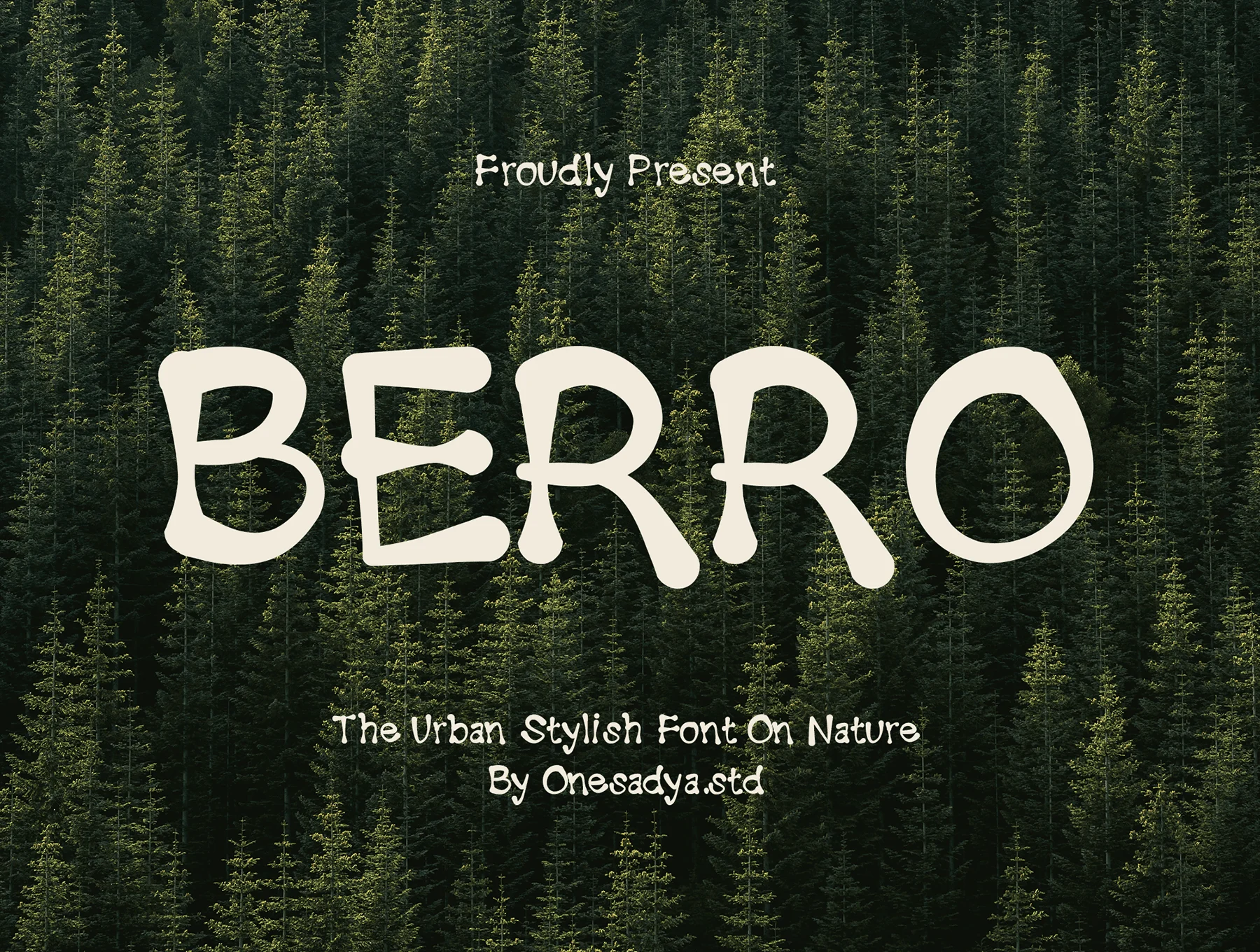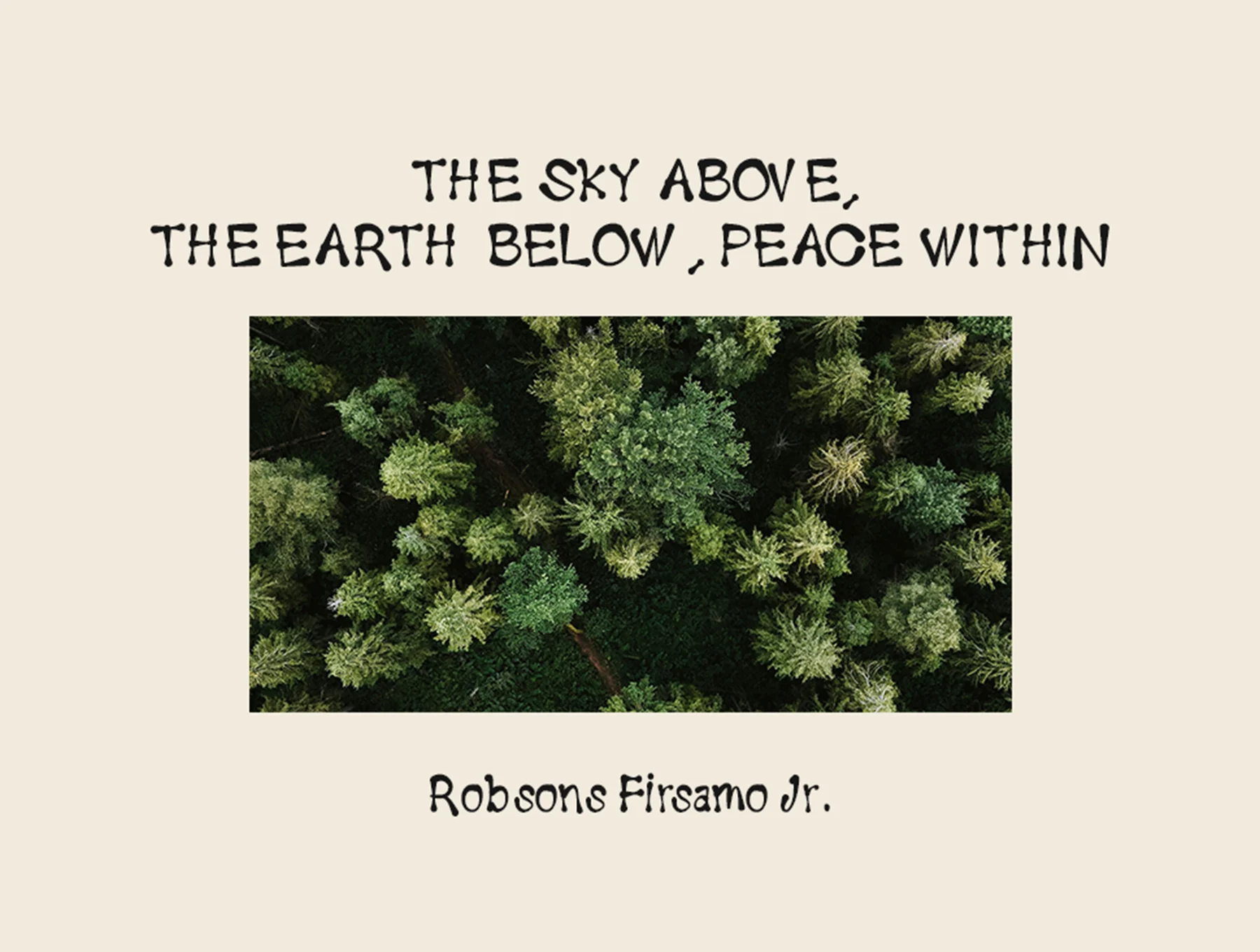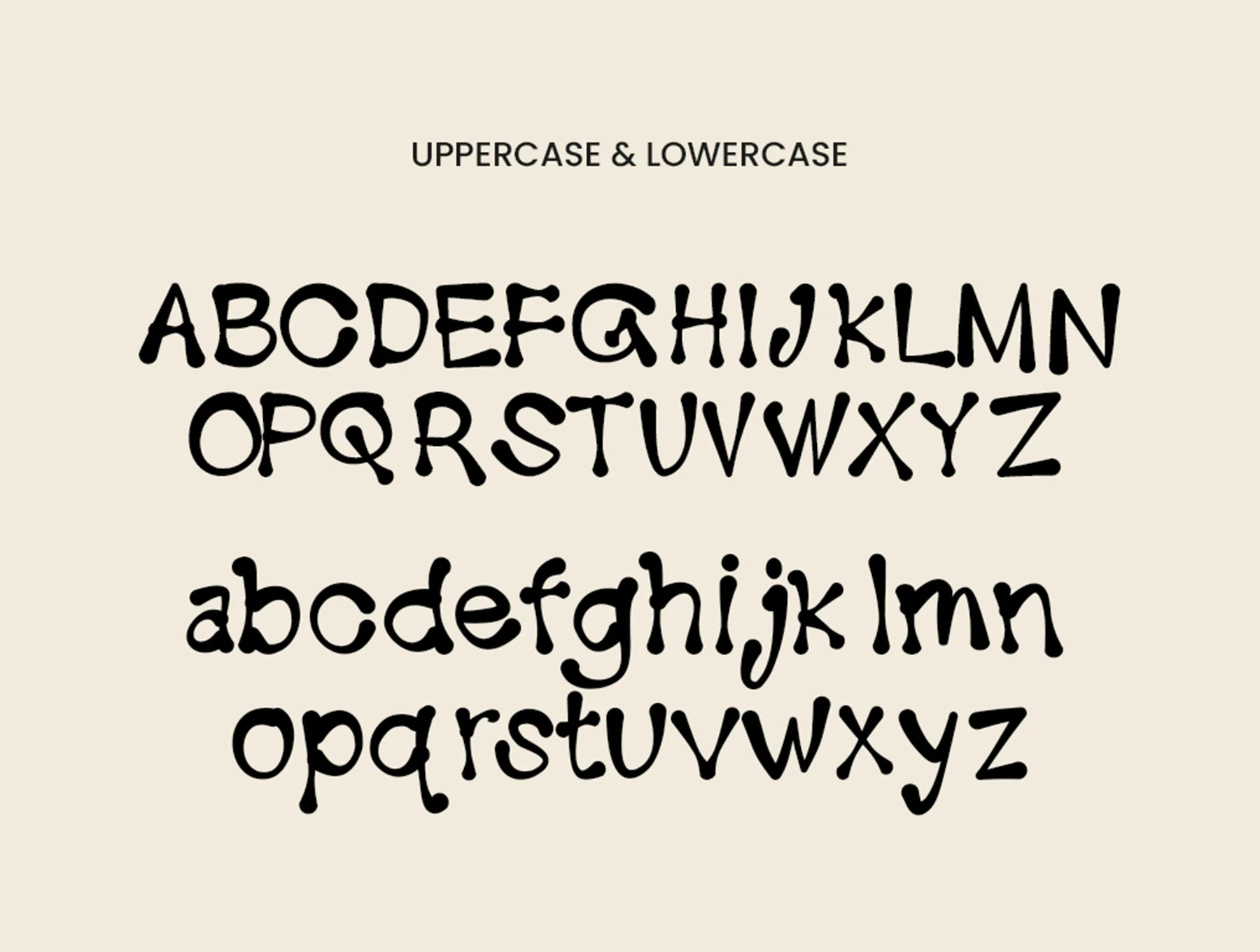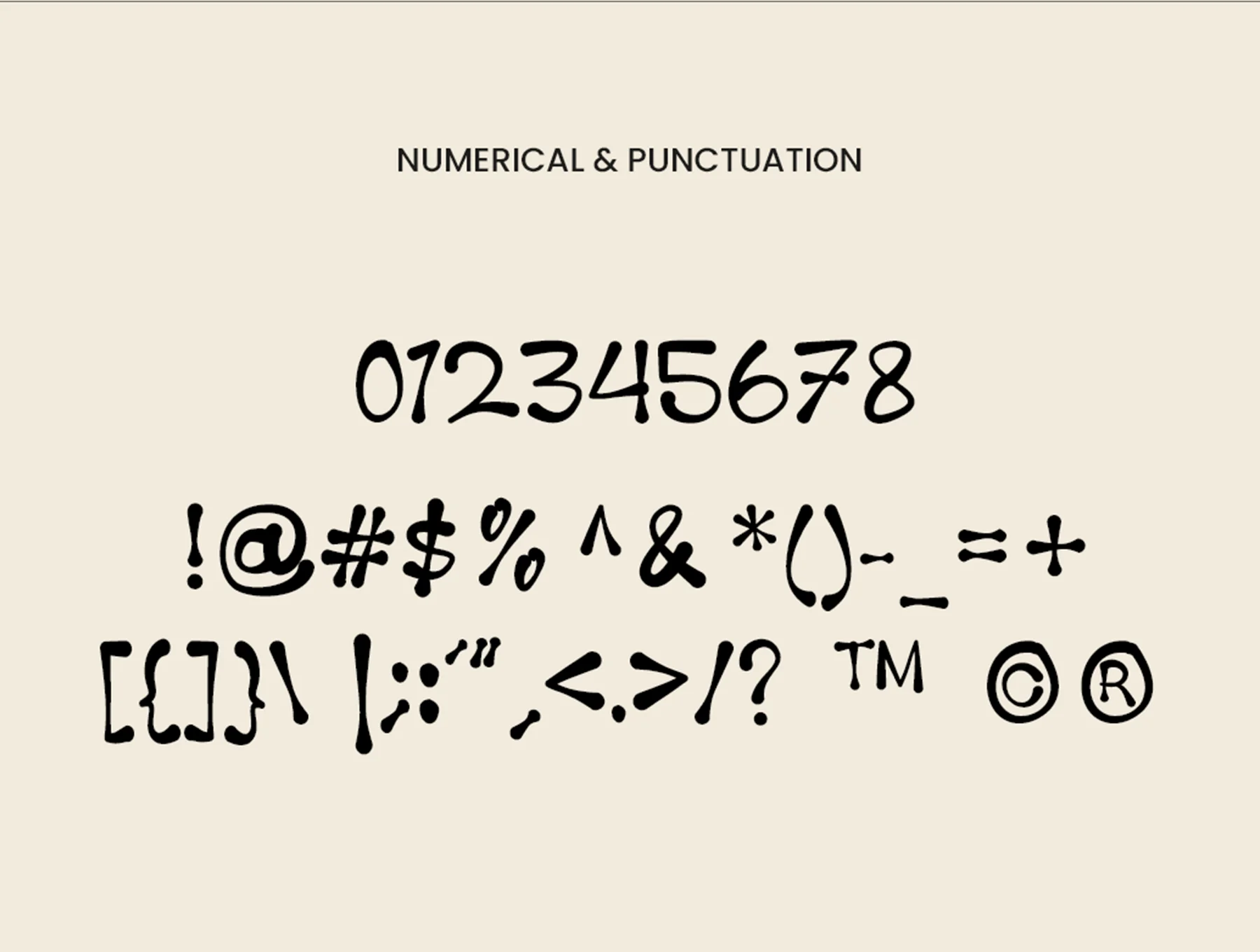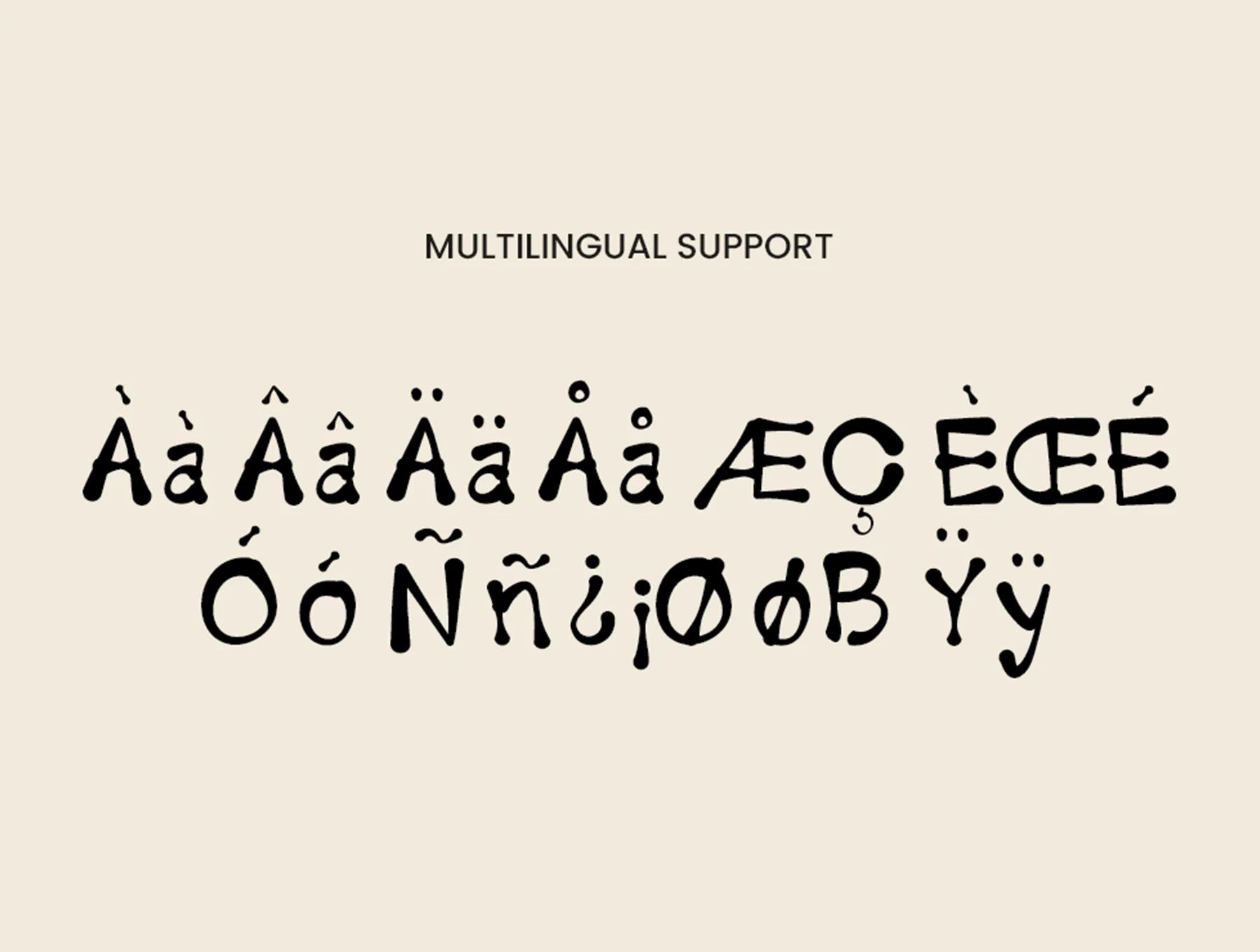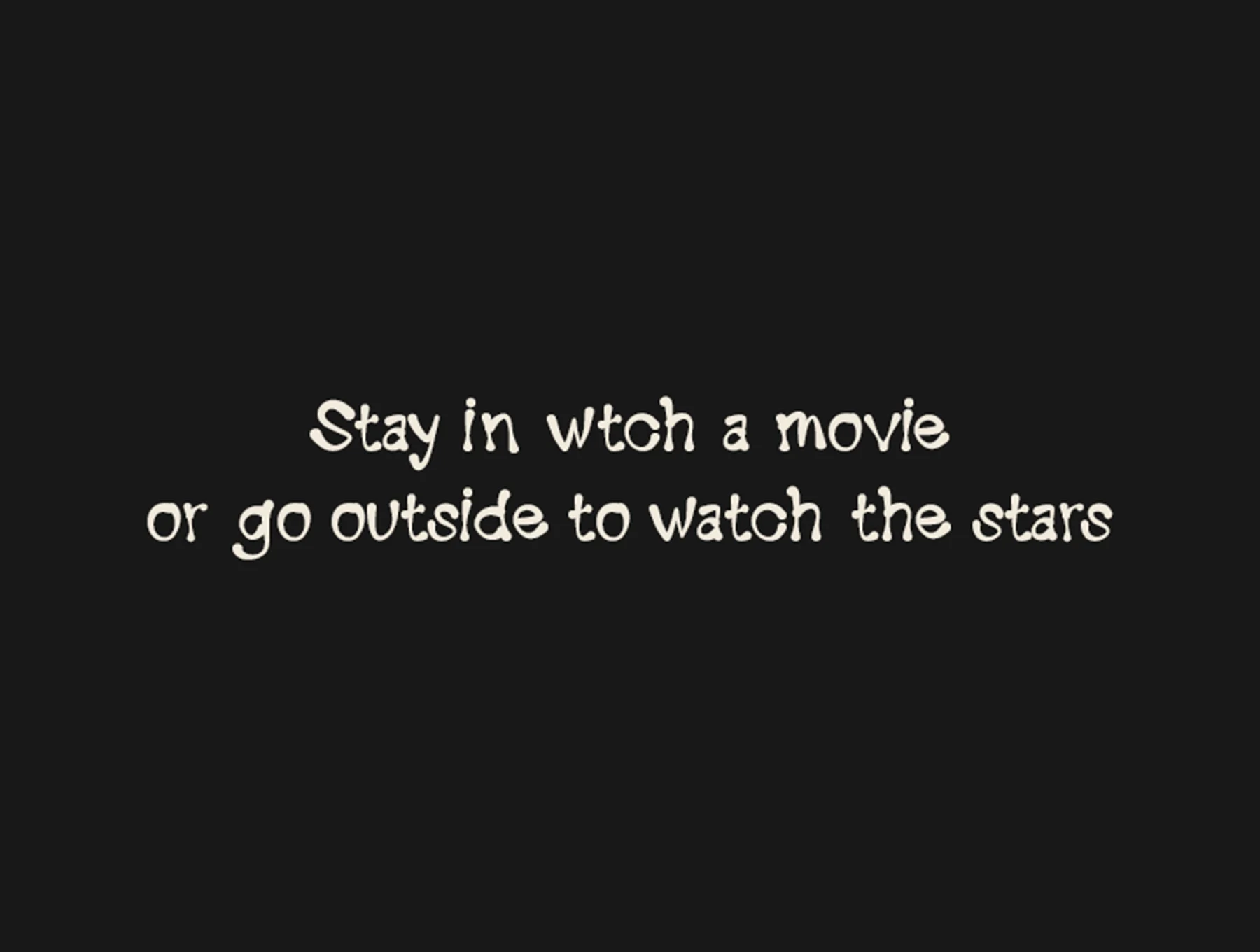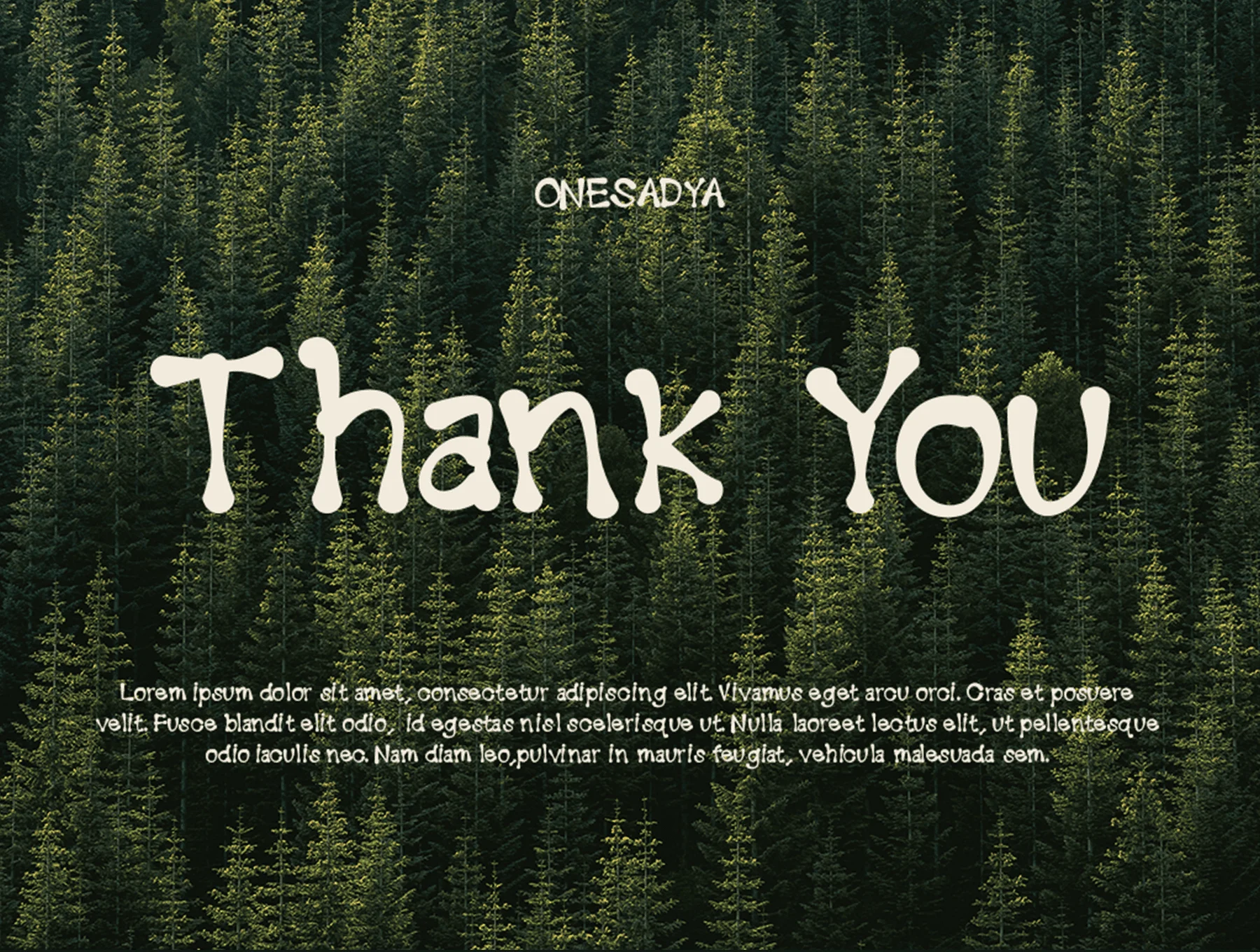
Berro – Handdrawn Display Typeface
This typeface offers a lively, natural, and approachable feel
Capital letters
Small letters
Numeric characters
Support for multiple languages
Berro is a whimsical hand-drawn display typeface shaped by natural forms, flowing botanical lines, and organic charm. With soft curves, uneven strokes, and handmade character, it suits bold headlines, branding, packaging, posters, eco products, kids’ designs, nature projects, and social posts. Includes OTF, TTF, and WOFF files.